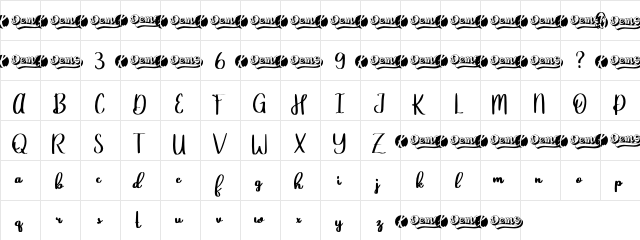
Ghemylia Regular
| Foundry | Katario Studio |
| Designer | Katario Studio / Rioniga Zandy |
Design Context for Ghemylia Typeface
Ghemylia is a composed and adaptable typeface that performs quietly and consistently across a wide range of design contexts.